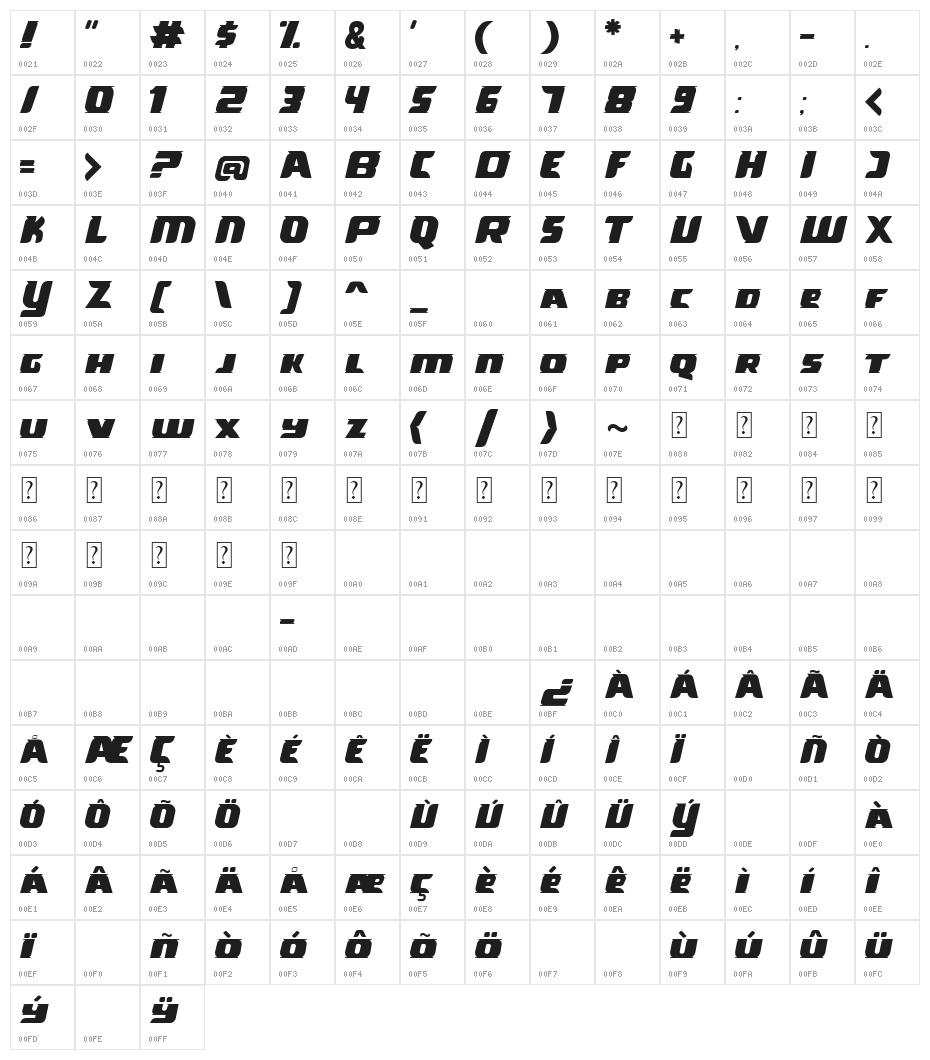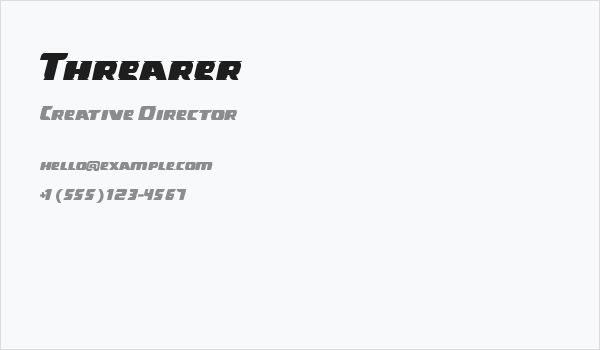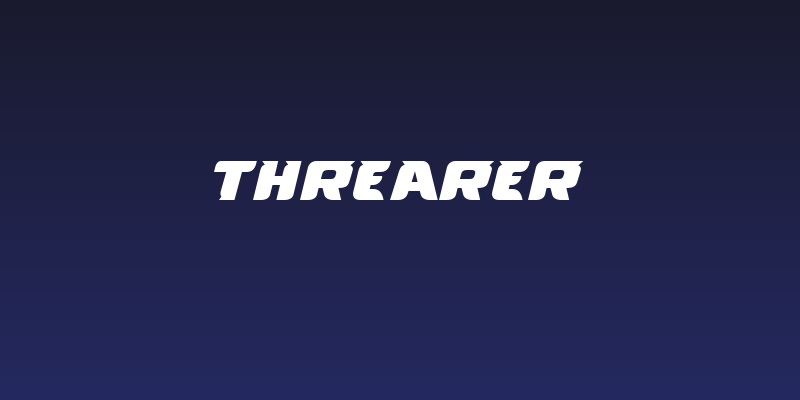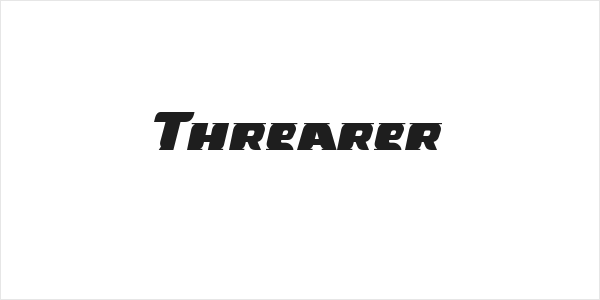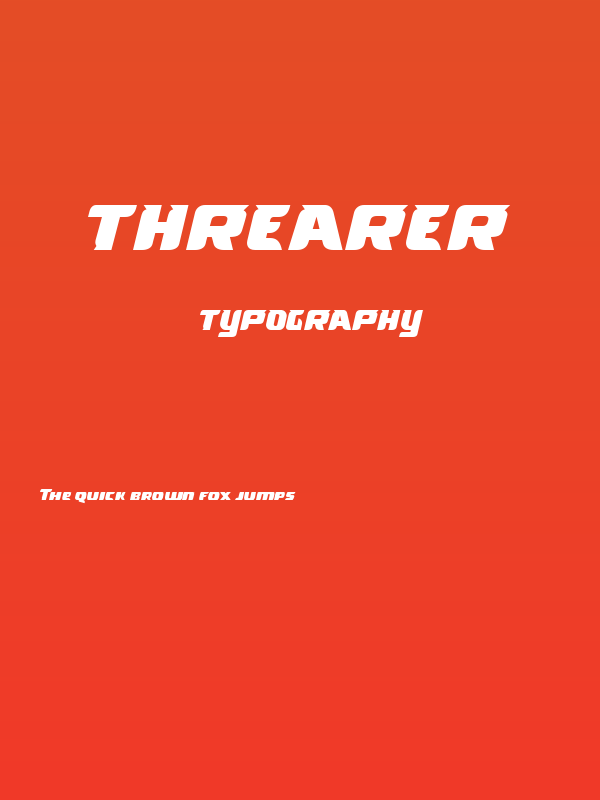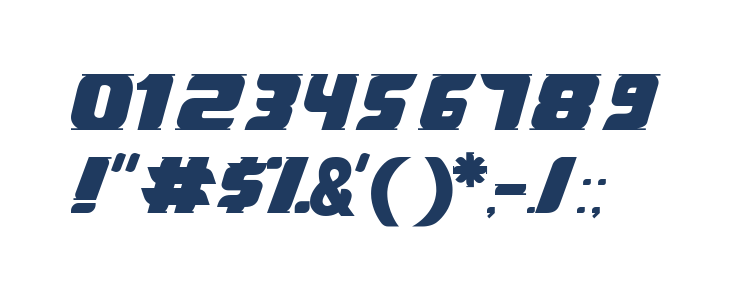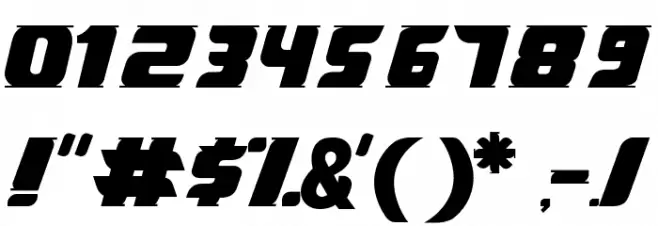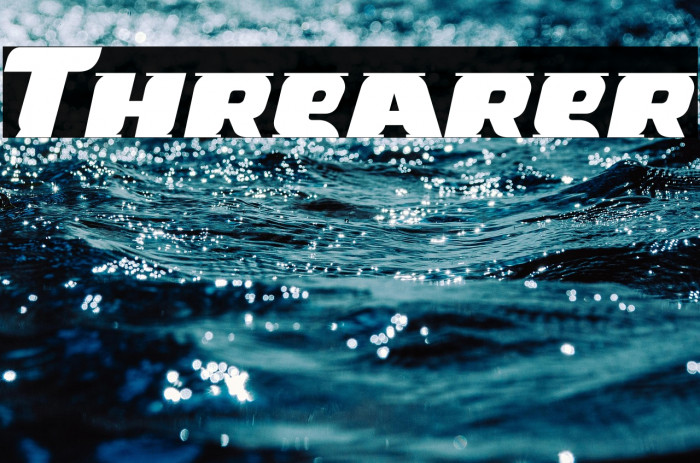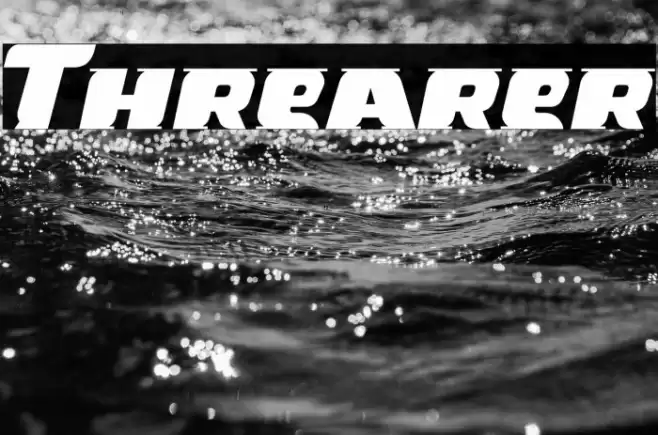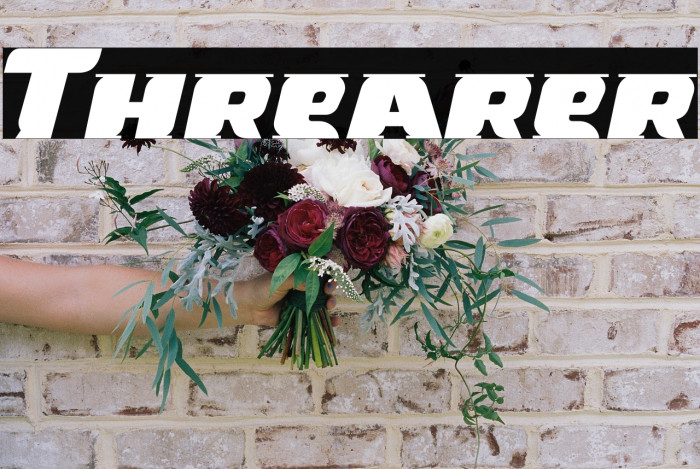
Threarer Font
Threarer Description
This font features a bold and dynamic style with a futuristic and sporty aesthetic. The characters are designed with sharp angles and a forward-leaning stance, giving a sense of motion and speed. The uppercase and lowercase letters maintain a consistent weight and width, creating a cohesive look. The numbers and special characters follow the same design principles, ensuring uniformity across all glyphs. The font's strong presence makes it ideal for attention-grabbing headlines and impactful designs.
| Proposed Projects | Ideal for sports branding, automotive designs, video game titles, and dynamic posters. |